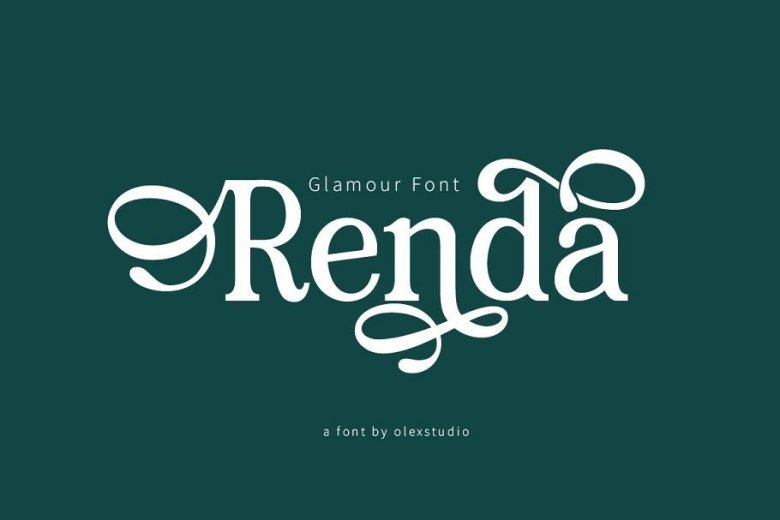
Renda Bold Modern Serif Font
Renda Font is a bold, unique, fashionable, luxurious, modern and elegant serif with lots of ties and alternatives that will make your presentation more amazing and stand out!
Renda Font  is a versatile font and is perfect for any modern project including branding designs, logos, invitations, wedding decorations, website designs, Instagram, business cards, and more!